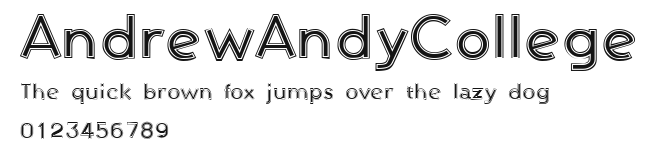
• Font Name: AndrewAndyCollege
• Full Font Name: AndrewAndyCollege
About AndrewAndyCollege.ttf
AndrewAndyCollege.ttf is a modern, elegant sans-serif font designed for ultimate readability and visual harmony. Perfect for branding, headlines, web design, and print materials.